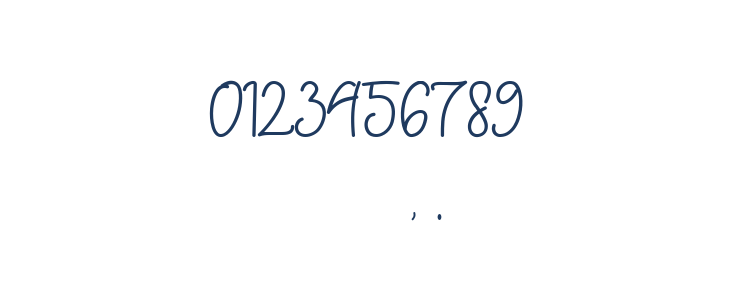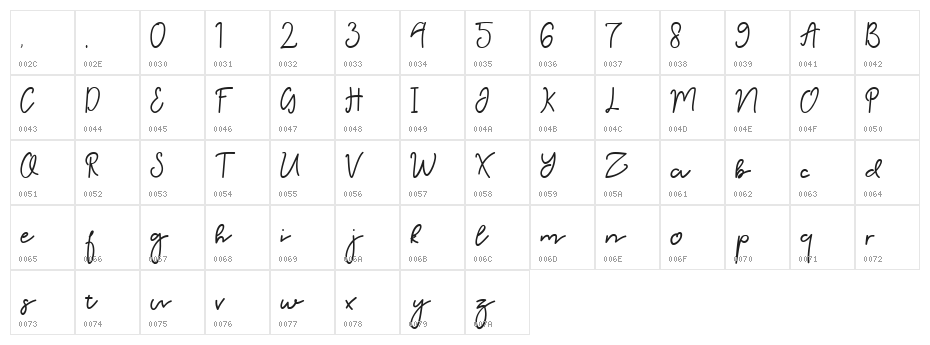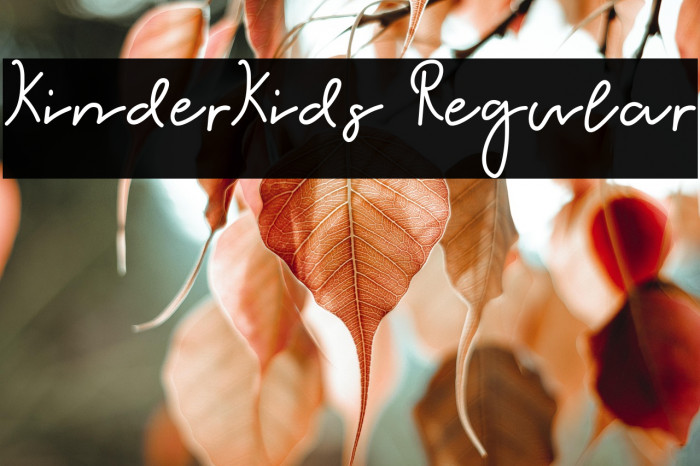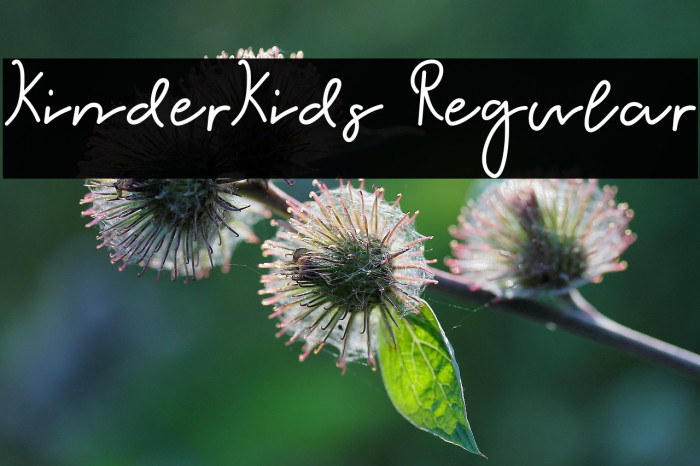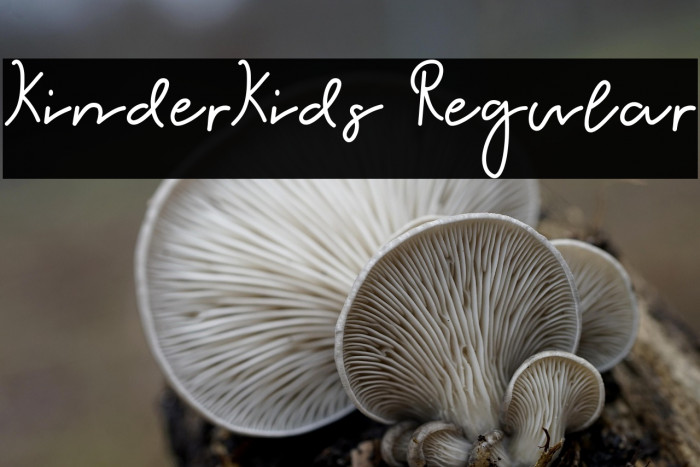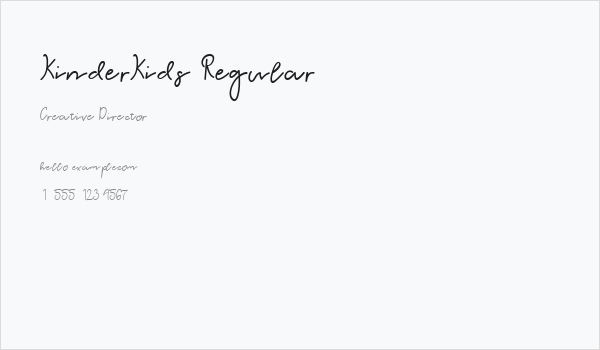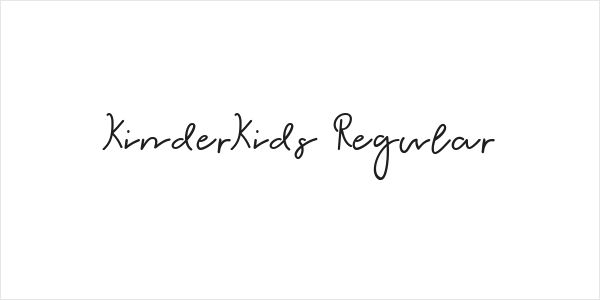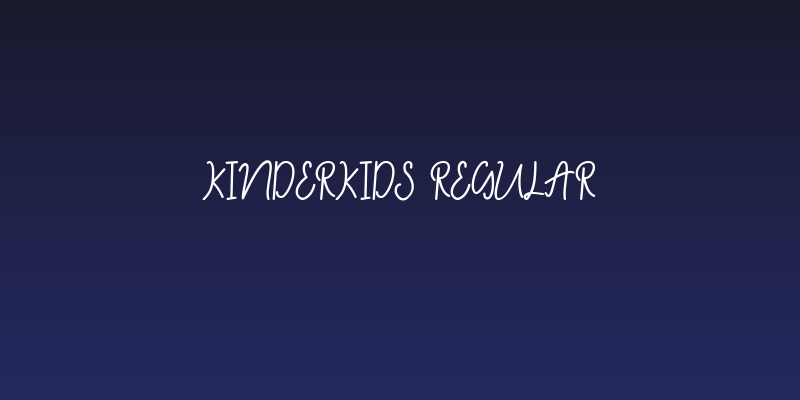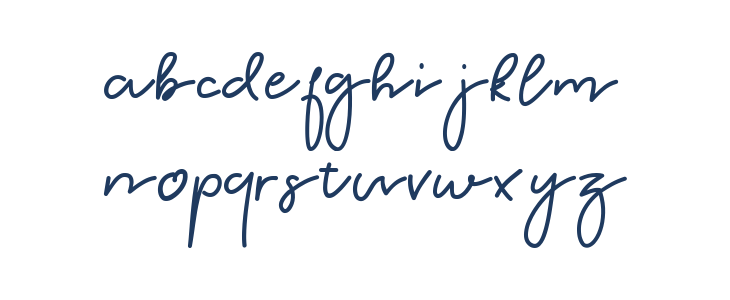
KinderKids Regular Font
KinderKids Regular Description
This playful and whimsical font features a handwritten style with a casual, friendly appearance. The letters are slightly slanted, giving it a dynamic and lively feel. The strokes are smooth and flowing, with a consistent thickness that adds to its readability. The uppercase letters are bold and prominent, while the lowercase letters maintain a charming, approachable look. The numbers are clear and easy to read, complementing the overall style. This font is perfect for projects that require a touch of fun and creativity.
| Proposed Projects | Ideal for children's books, educational materials, playful branding, and creative invitations. |